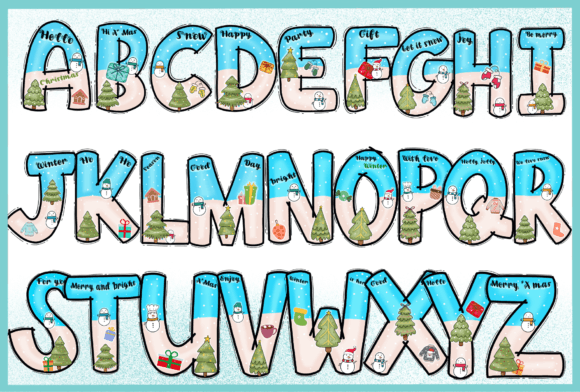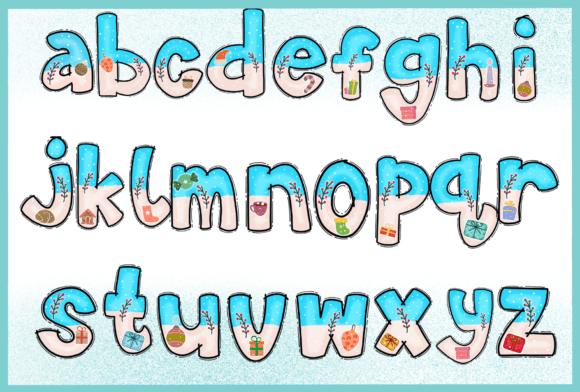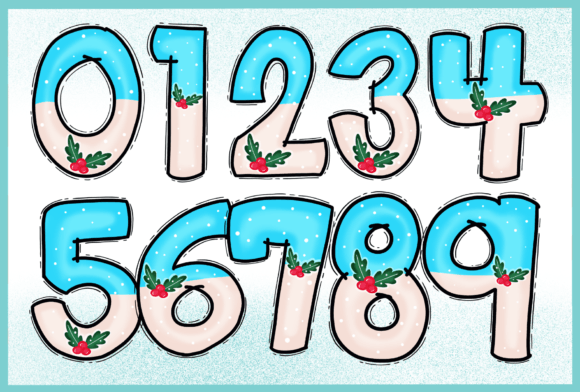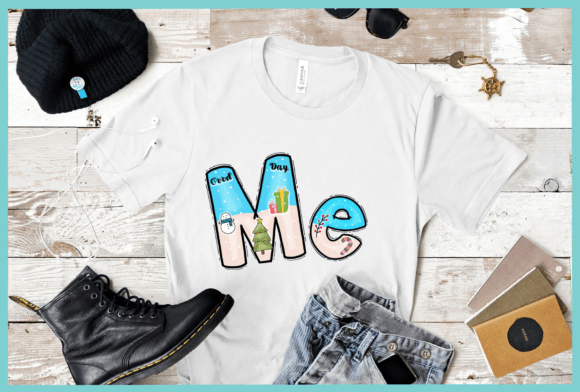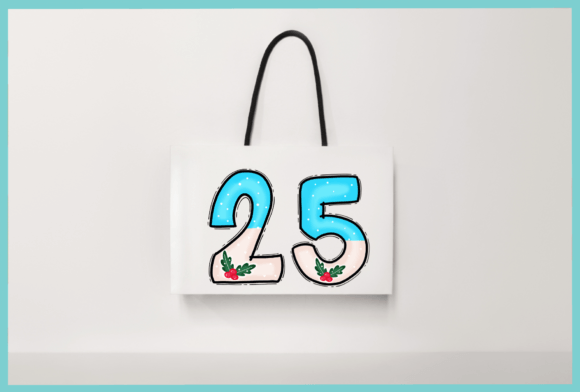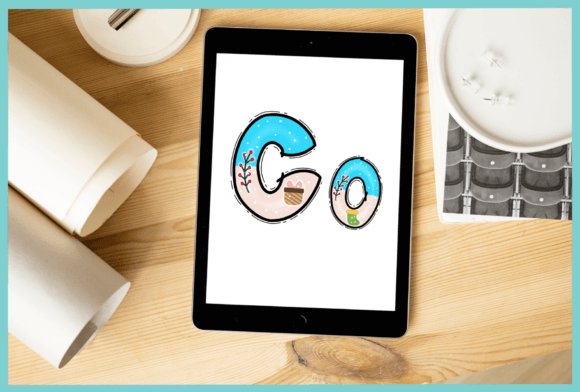
Introduction to Christmas Snowly Font
Christmas Snowly font is a festive and decorative typeface that captures the magic of the holiday season.
Each letter is adorned with intricate Christmas elements and cheerful words, creating a whimsical and joyful design Whether youโre crafting holiday cards, gift tags, or festive banners, Christmas Snowly adds a touch of merriment and enchantment to your text, making it perfect for spreading holiday cheer.